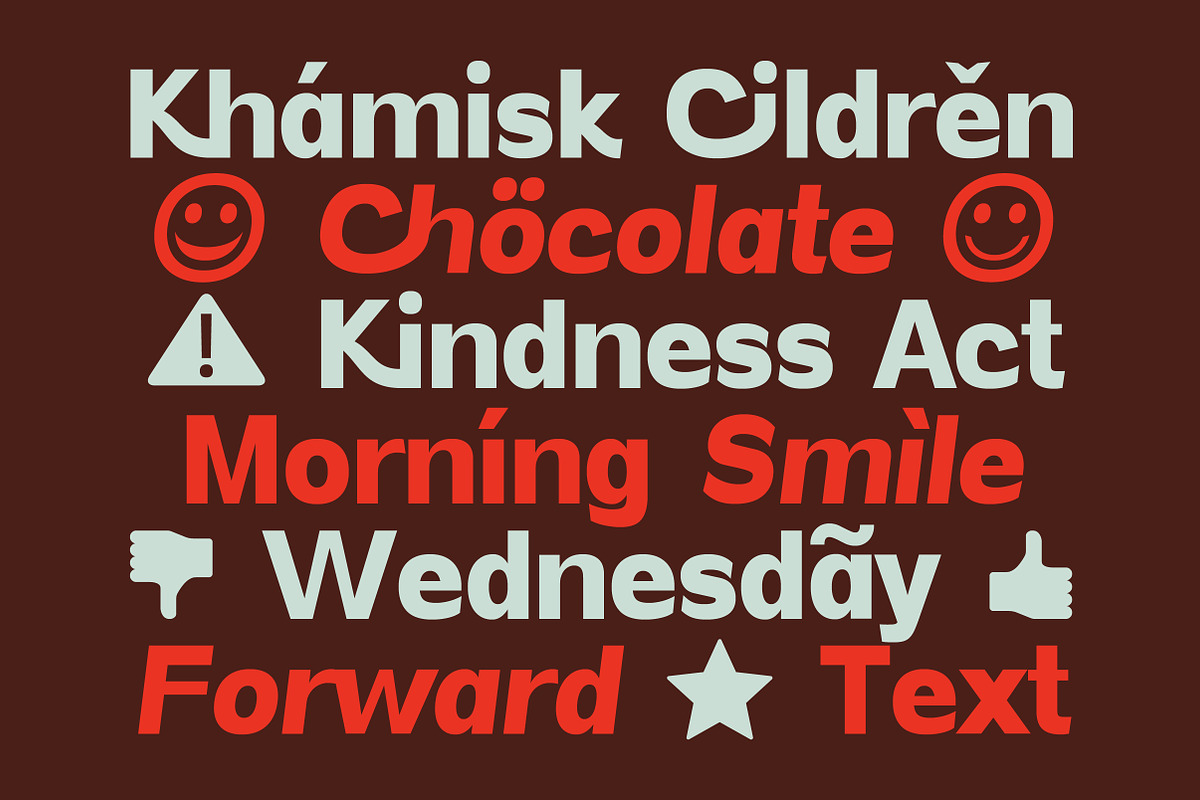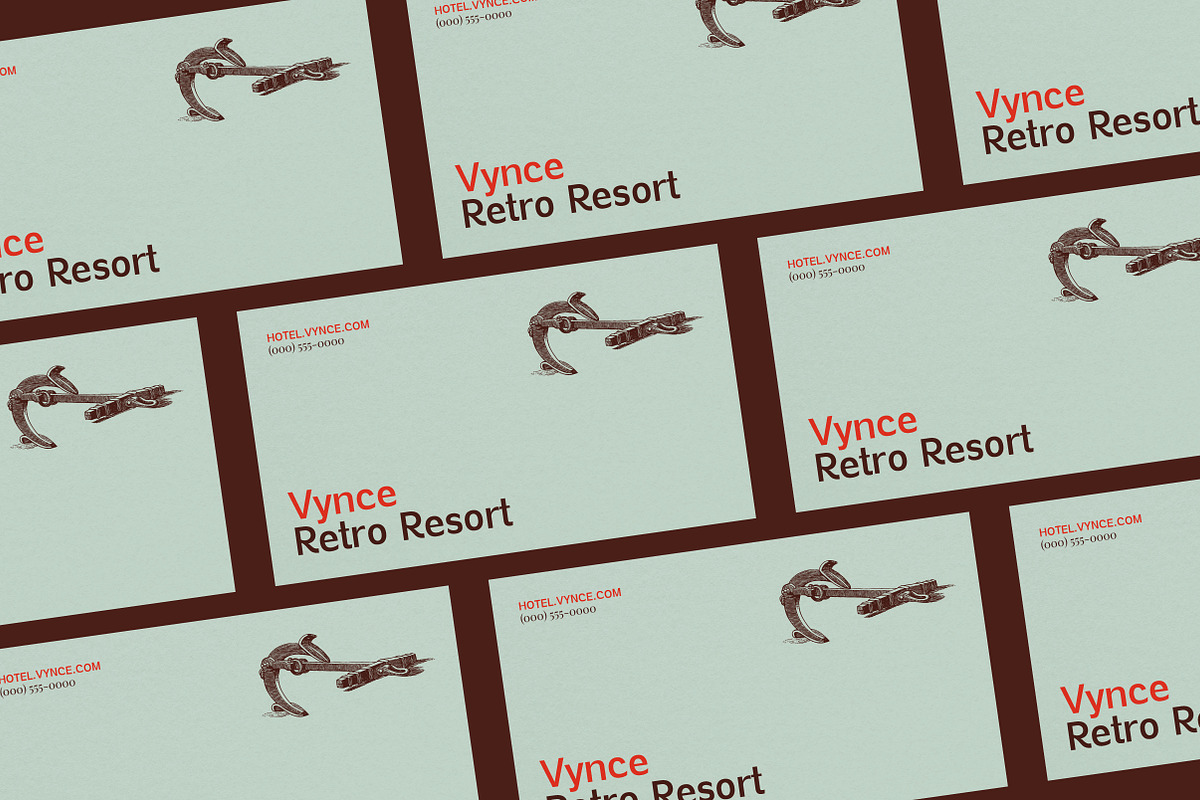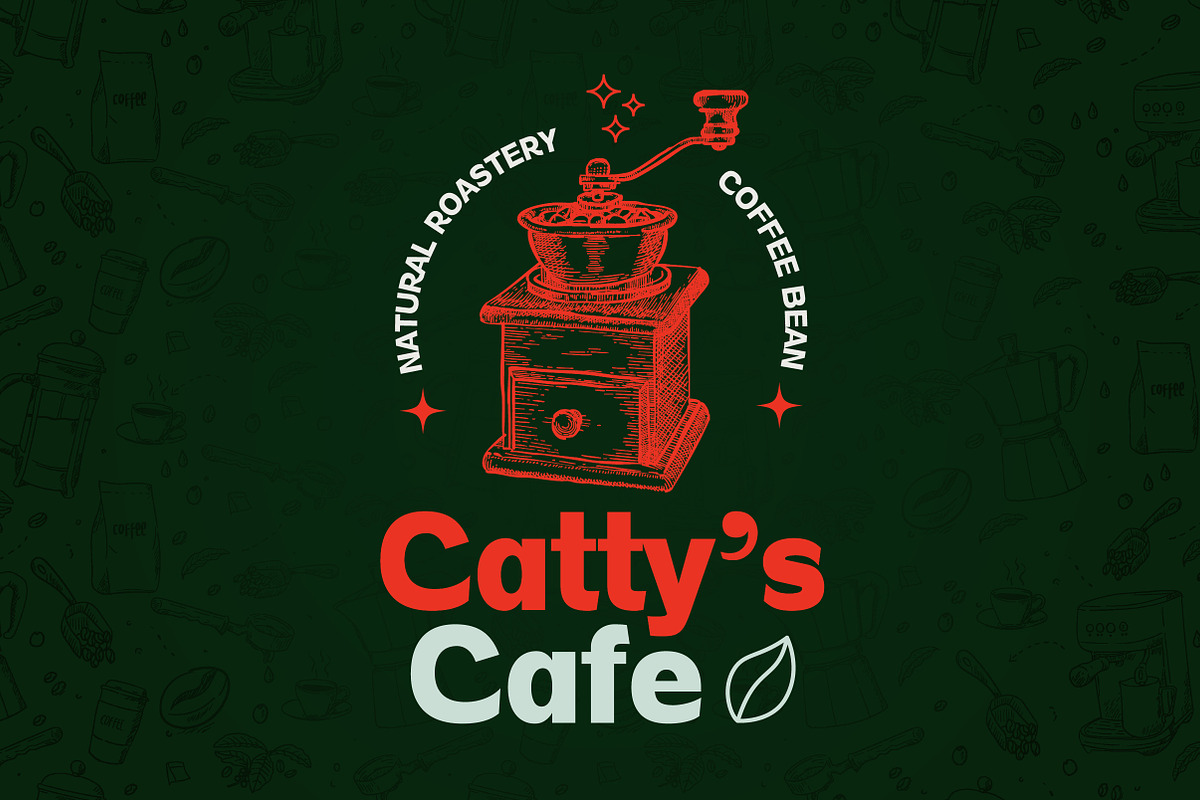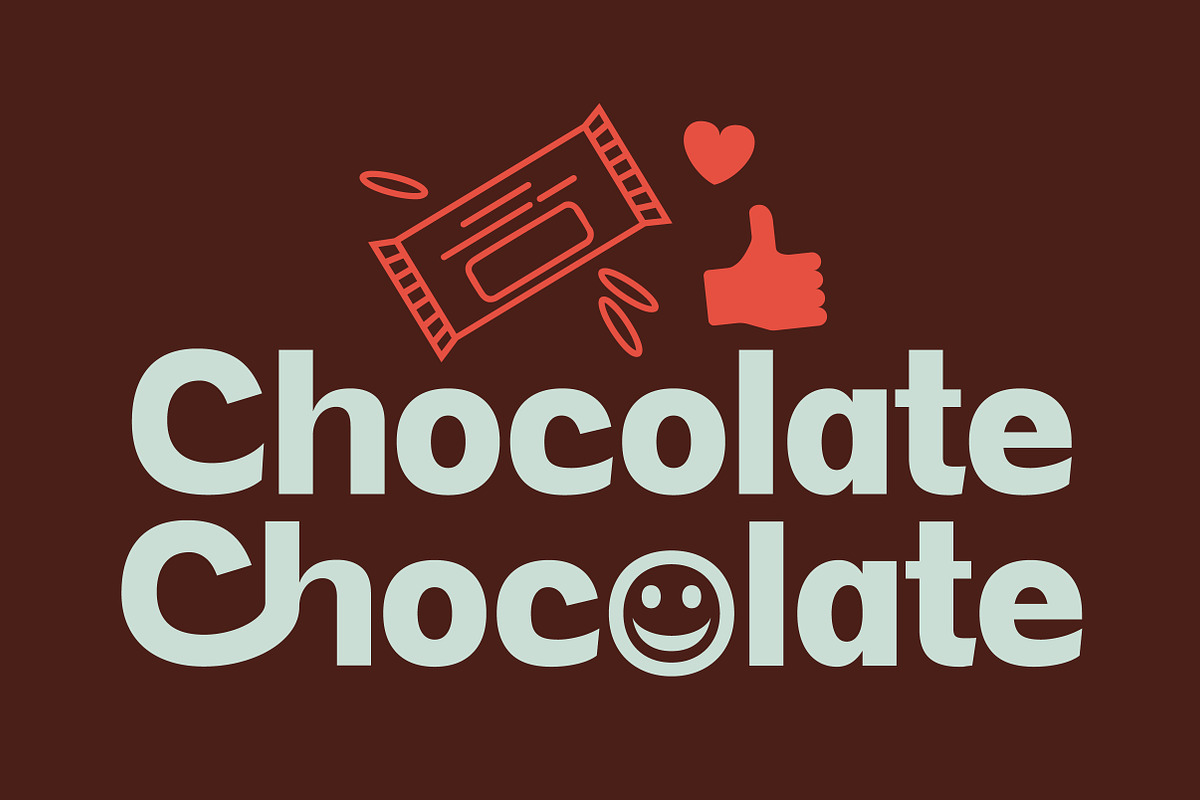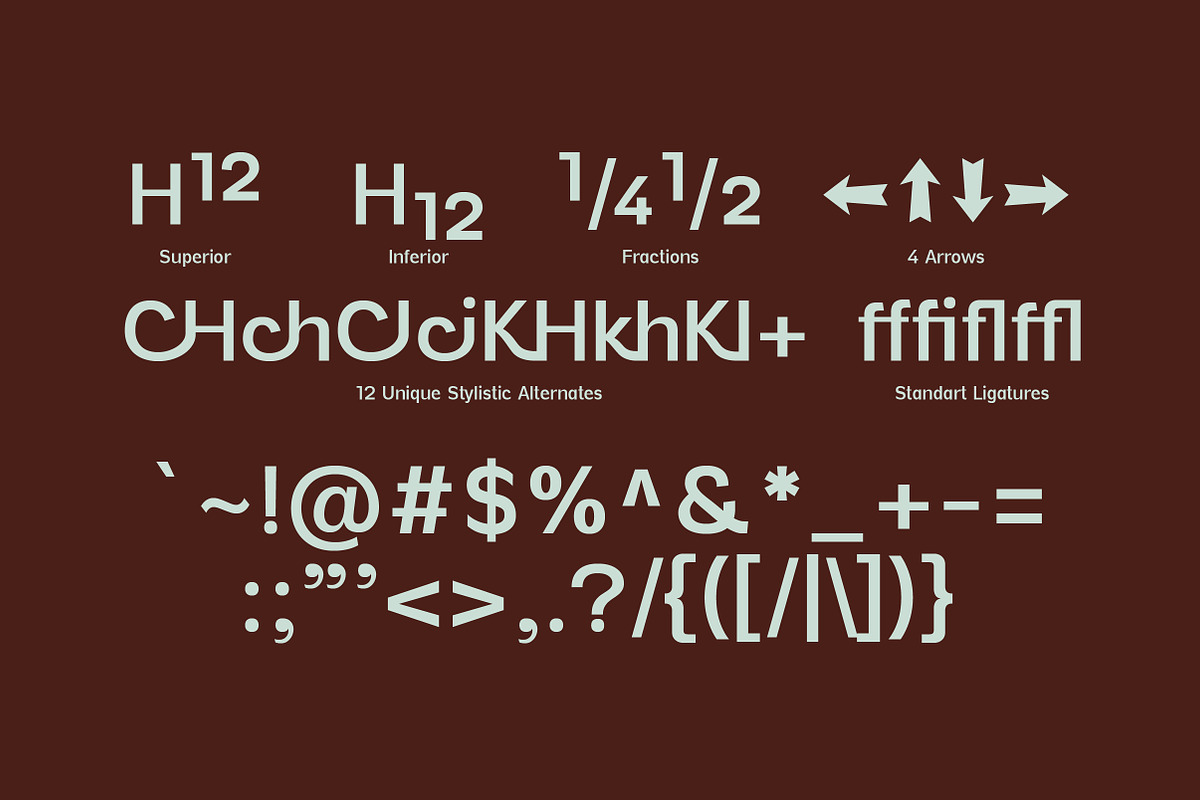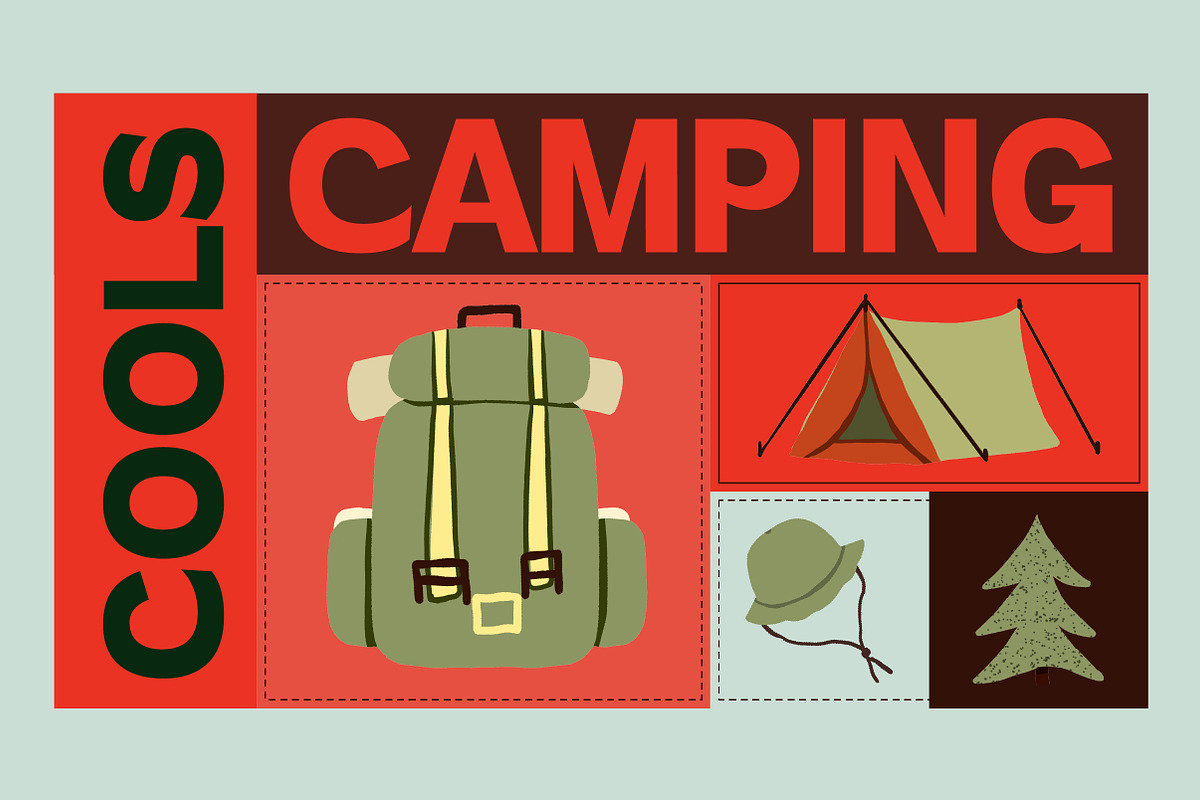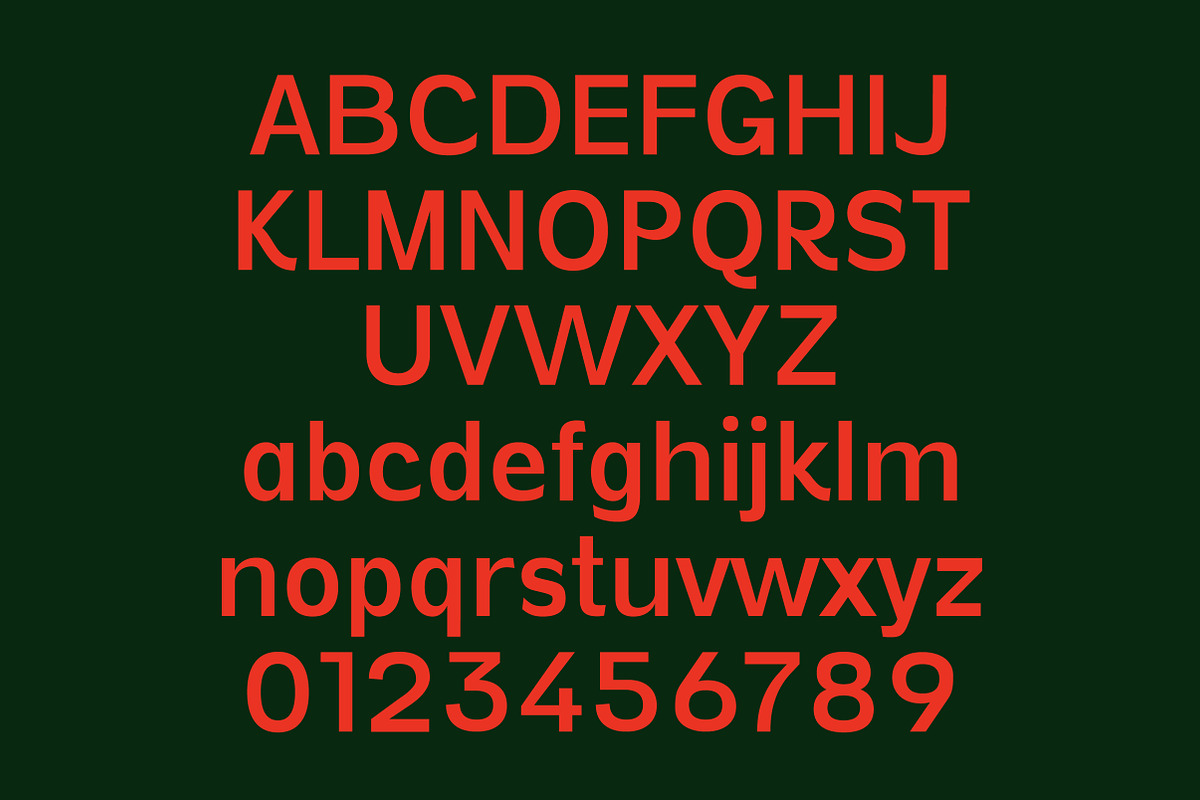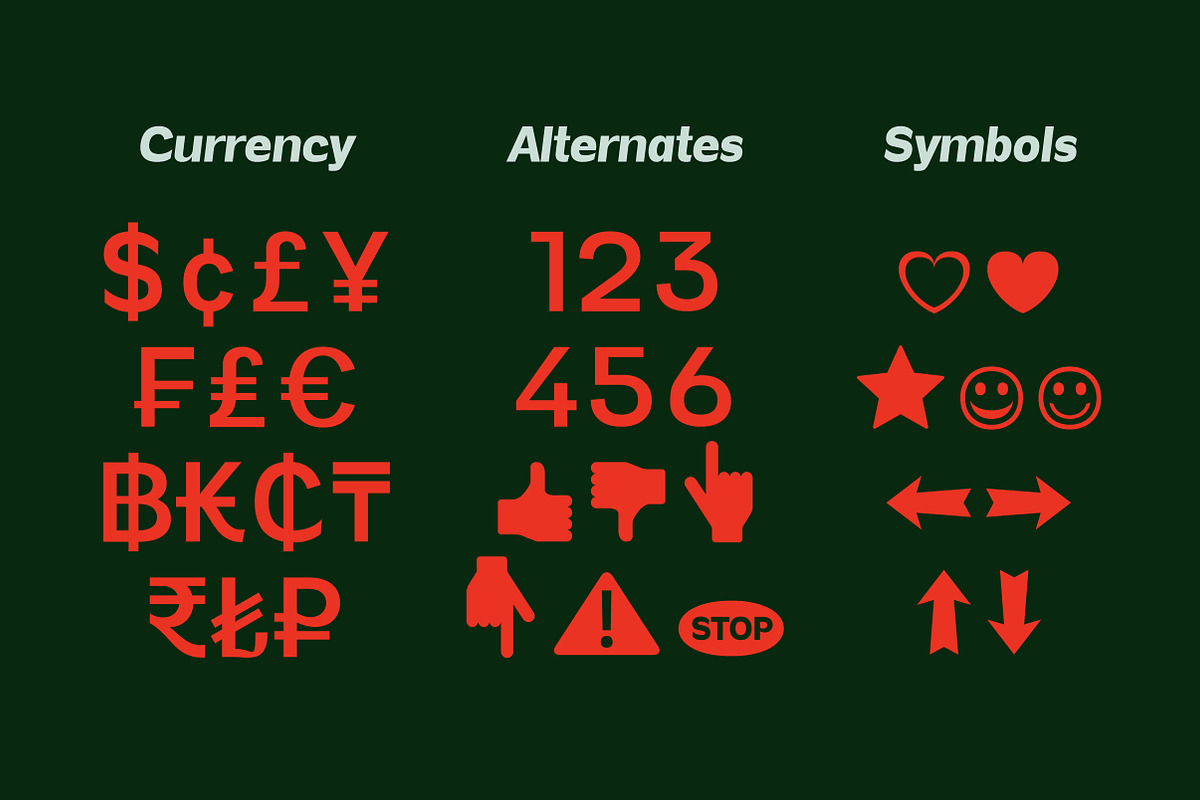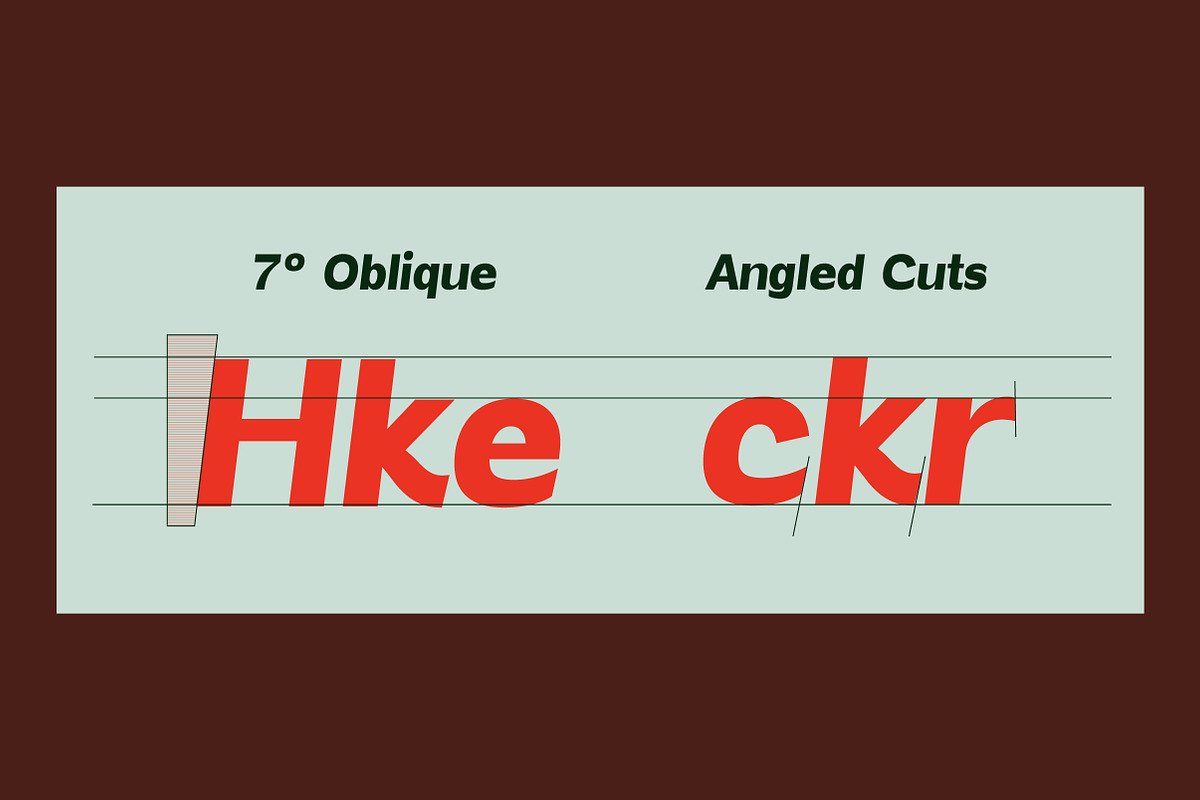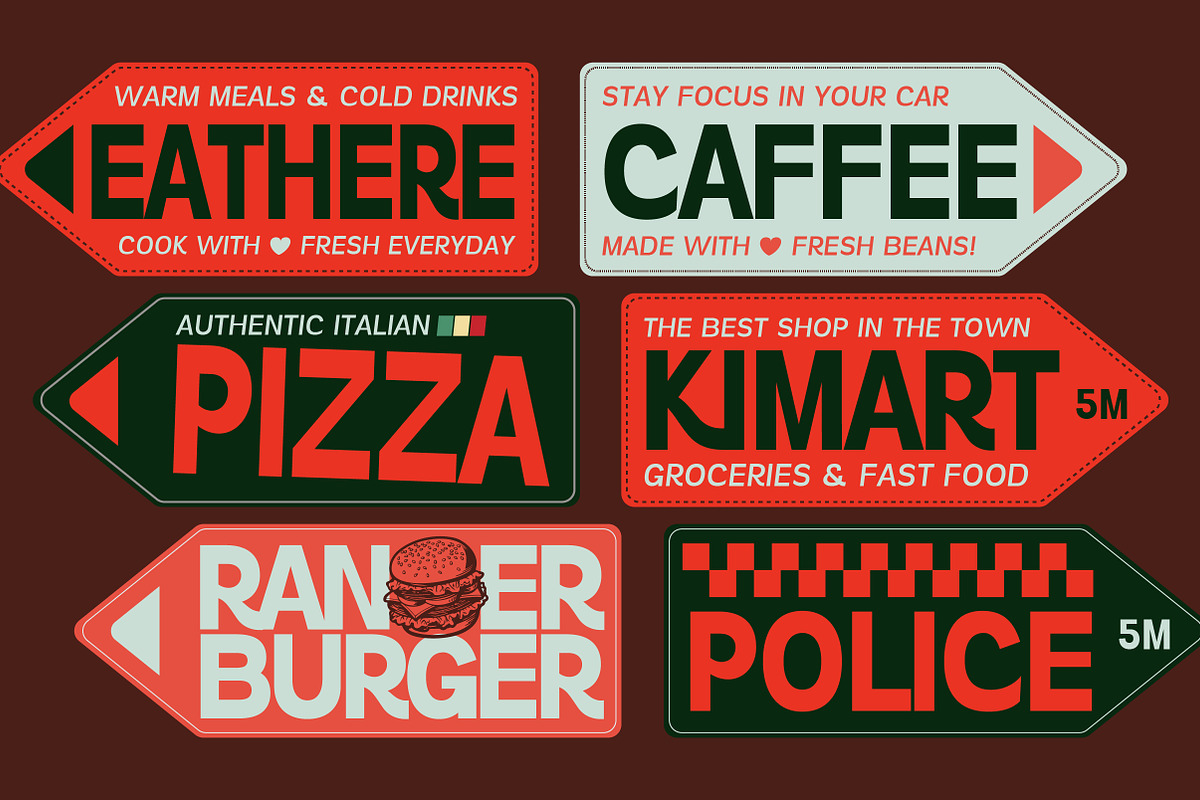
Vynce Sans Picturesque Family
Vynce Sans is a unique, picturesque, retro, versatile sans-serif geometric typeface that delivers clean lines and timeless appeal. Designed for readability and versatility, this font family offers balance, clean, unique, and a good fit in a header or sub-header for your project will stand out.
There is a wide range of weights, from regular to black, including 12 weights and oblique style. OpenType features include unique discretionary ligatures (CH, CI, Ch, Ci, KH, KI, Kh, Ki, ch, ci, kh, & ki), figure variations (superiors, inferiors, fractions, & standard ligatures), arrows, angled terminal cuts, 11 cool symbols, and broad Latin language support.
These unique, picturesque fonts are a good fit in fashion, print design, social media, nature events, creatives, branding, posters, logos, web typography, packaging, or editorial design. They will elevate your creative projects and keep your designs on-trend with a retro look.
Vynce Sans Features:
- 12 Styles
- Upright & Oblique
- 491 Glyphs Total
- 270+ Languages Support
- Retro-inspired branding, fashion & lifestyle projects
- Editorial layouts, magazines & creative posters
- Web typography, UI headers & minimalist layouts
- Logo design, packaging & social media graphics
- Nature events, print design & modern vintage campaigns